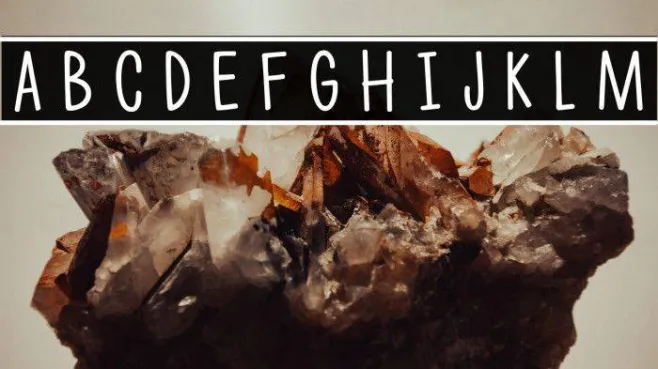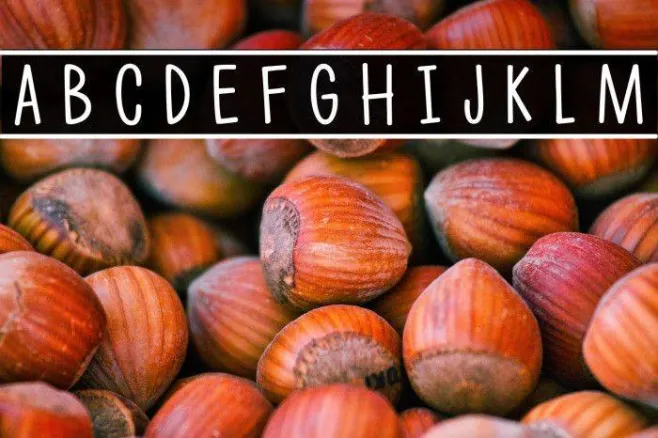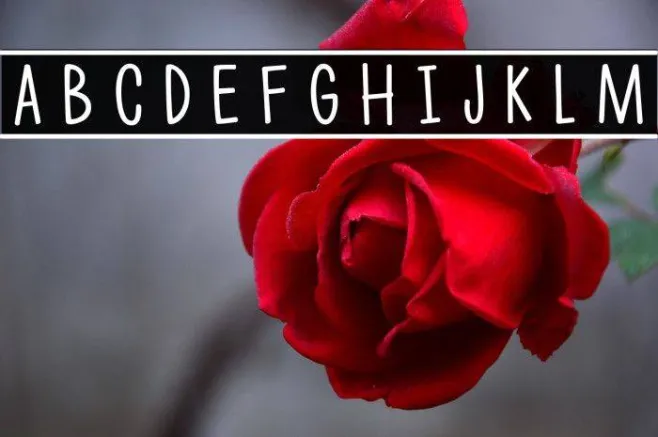
[Crayonized] Font
[Crayonized] Description
This playful and informal font features a handwritten style that mimics the look of crayon or marker writing. The characters are slightly uneven, adding a whimsical and casual feel. The uppercase and lowercase letters maintain a consistent height, while the numbers and special characters blend seamlessly with the overall design. The strokes are smooth and rounded, giving the font a friendly and approachable appearance. Ideal for projects that require a touch of creativity and fun, this font is perfect for children's books, educational materials, and playful branding.
| Use Case | Headlines, Logos, Informal text |
| Proposed Projects | Children's books, educational materials, playful branding, greeting cards, and informal invitations. |